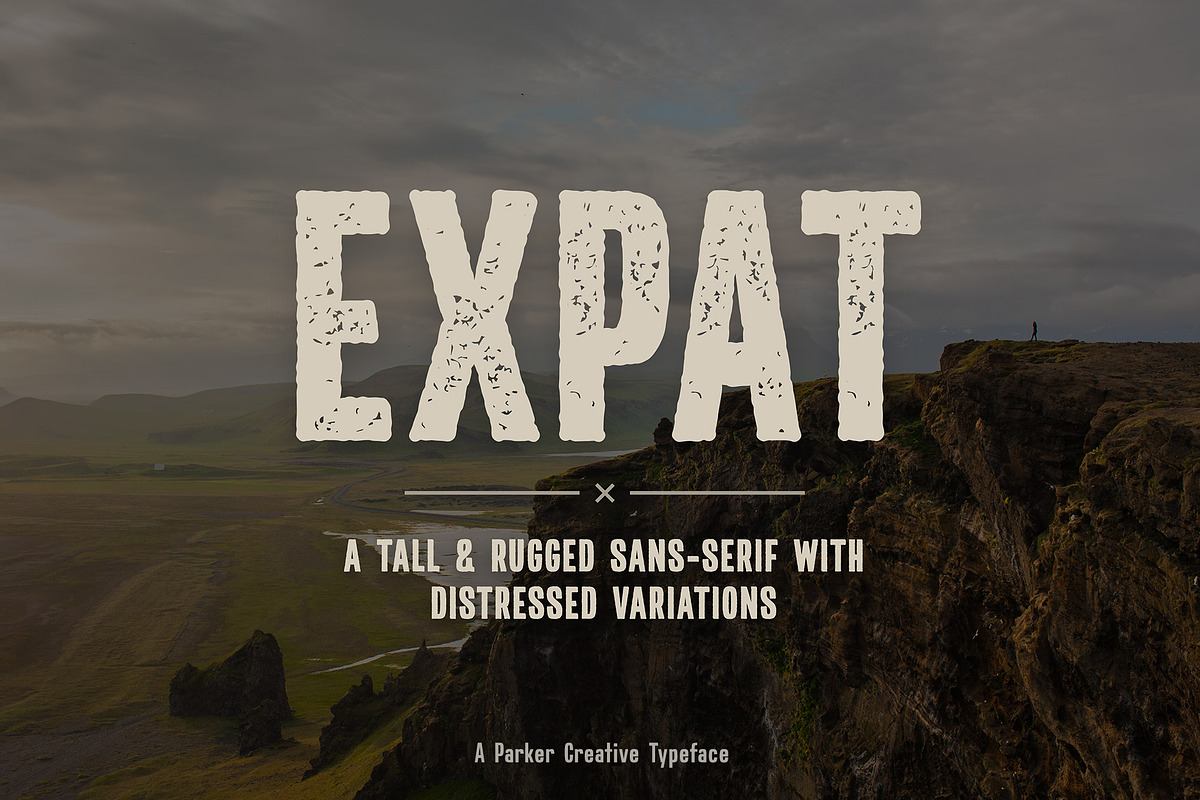
Expat Rugged Adventure Font Free Download is a bold and adventurous typeface designed to evoke a sense of exploration and ruggedness. With its distressed texture and strong, bold letterforms, this font is perfect for outdoor branding, adventure-related projects, logos, posters, and apparel. Its vintage, weathered design makes it ideal for projects that require a tough, dynamic look.
Whether you're creating a logo for an outdoor brand, designing an adventure travel poster, or working on any project related to nature or exploration, Expat Rugged Adventure adds a sense of strength and character to your typography.